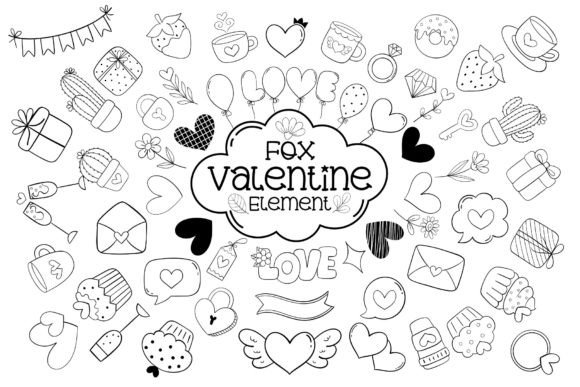
Introducing Fox Valentine Font: The Ultimate Valentine’s Day Dingbat Font
Are you looking for a unique and creative way to add a touch of Valentine’s Day spirit to your craft projects, designs, planners, diaries, and activity books? Look no further than the Fox Valentine Font, a specially designed dingbat font that is sure to make your creations stand out.
What is Fox Valentine Font?
Fox Valentine Font is a cute and versatile dingbat font that is perfect for the Valentine’s season and party. This beautiful font is designed to add a touch of whimsy and romance to your creative projects, making it ideal for a wide range of applications.
Whether you’re a crafty DIY enthusiast, a professional designer, or simply someone who loves to get creative, Fox Valentine Font is the perfect addition to your font collection. With its adorable doodle designs, this font is sure to bring a smile to anyone’s face.
The Many Uses of Fox Valentine Font
One of the best things about Fox Valentine Font is its versatility. This font can be used for a wide range of creative projects, including:
- Craft projects: Add a touch of Valentine’s Day spirit to your handmade cards, gift tags, and other craft projects.
- Designs: Use Fox Valentine Font to create stunning designs for social media, blogs, and websites.
- Planners and diaries: Add a personal touch to your planners and diaries with this beautiful dingbat font.
- Activity books: Create fun and engaging activity books for kids and adults alike with Fox Valentine Font.
The possibilities are endless, and with Fox Valentine Font, you can let your creativity shine.
Features of Fox Valentine Font
So, what makes Fox Valentine Font so special? Here are just a few of its key features:
- Cute and adorable doodle designs
- Perfect for Valentine’s Day and party-themed projects
- Versatile and can be used for a wide range of creative projects
Tips for Using Fox Valentine Font
Here are a few tips for using Fox Valentine Font in your creative projects:
- Experiment with different colors and combinations to find the perfect look for your project.
- Use Fox Valentine Font to add a personal touch to your designs and make them stand out.
- Don’t be afraid to get creative and try new things – that’s what dingbat fonts are all about!
In conclusion, Fox Valentine Font is a must-have dingbat font for anyone looking to add a touch of Valentine’s Day spirit to their creative projects. With its cute and adorable doodle designs, versatility, and ease of use, this font is perfect for crafty DIY enthusiasts, professional designers, and anyone in between.